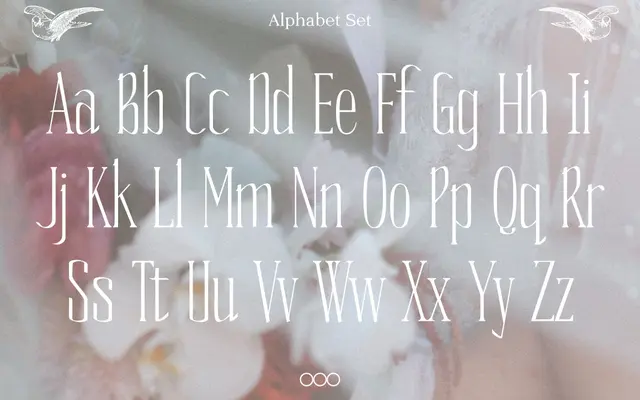
A single-weight condensed display serif with tall proportions and an elegant character suited to headline and editorial use.
Vows is a condensed display serif from That That Type, offered in one Regular weight with a tall cap height and generous ascenders that lend it a slender, upright formality. The glyph set covers Basic Latin, Latin-1 Supplement and selected Latin Extended characters, along with standard ligatures for ff, ffi and ffl. Its narrow stance and refined detailing make it well suited to wedding stationery, magazine headlines and branding work that wants a formal, restrained voice.
The foundry explicitly describes Vows as an elegant condensed display serif, with tall ascenders, tight proportions and a high cap height suited to headline use rather than text setting.